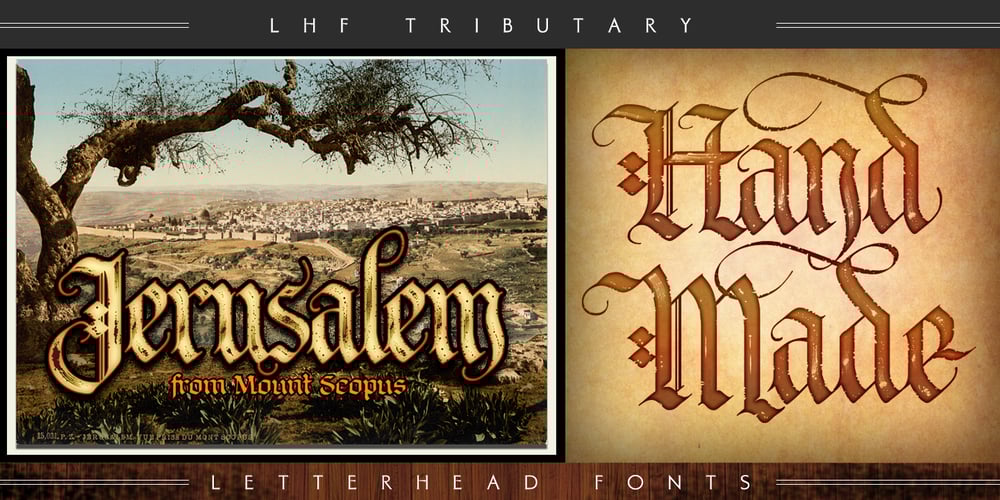
LHF Tributary Font Family was designed by David Parr and published by Letterhead Fonts. LHF Tributary contains 6 styles and family package options. LHF Tributary is a fine example of expertly executed calligraphy. The Distressed letters have been carefully designed to give it a freshly-inked appearance. Beautiful fluid flourishes contrast with bold strokes to create an extremely well-balanced typeface. David has packed in 114 OpenType surprises and bonus alternates.